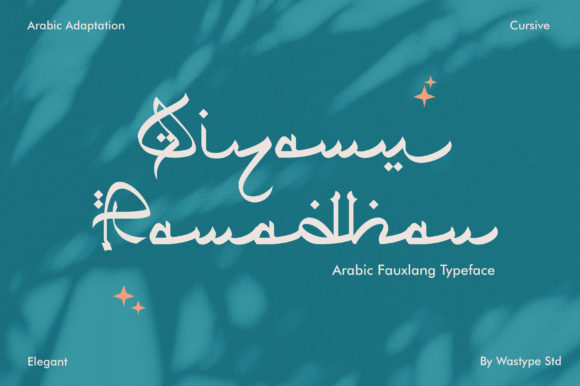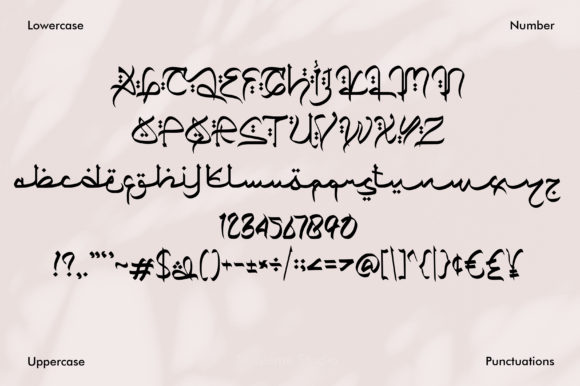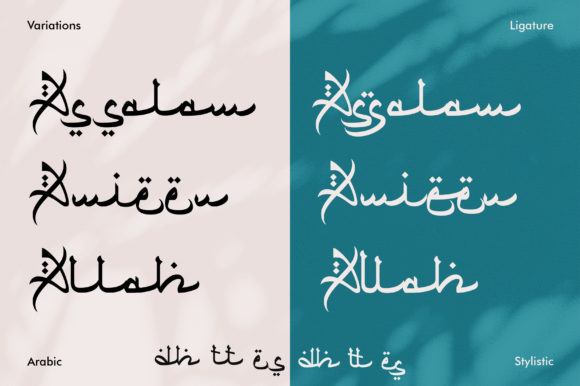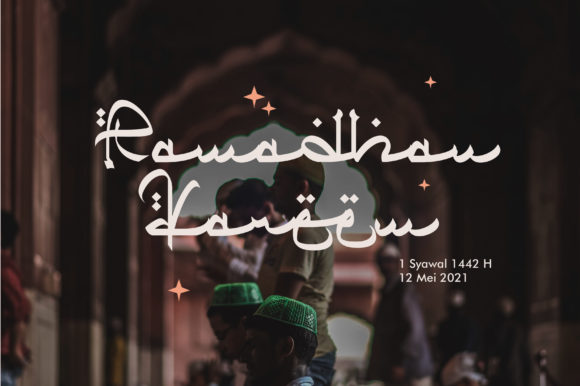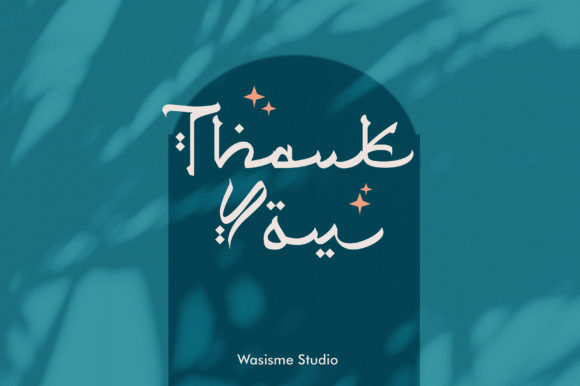
Qiyamu Ramadhan Font
About Qiyamu Ramadhan Font
Qiyamu Ramadhan is a lovely and unique, Arabic art inspired script font. Add this cursive and delicate looking font to your creations, and they will instantly stand out.